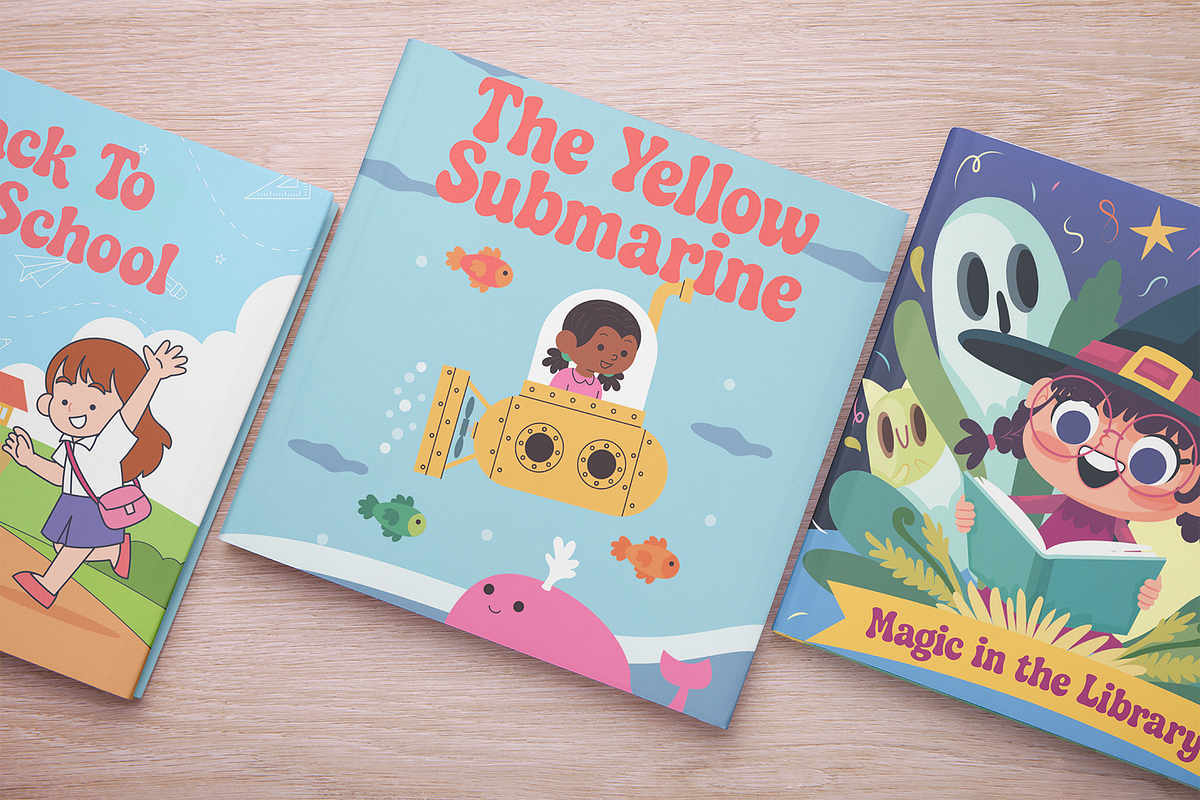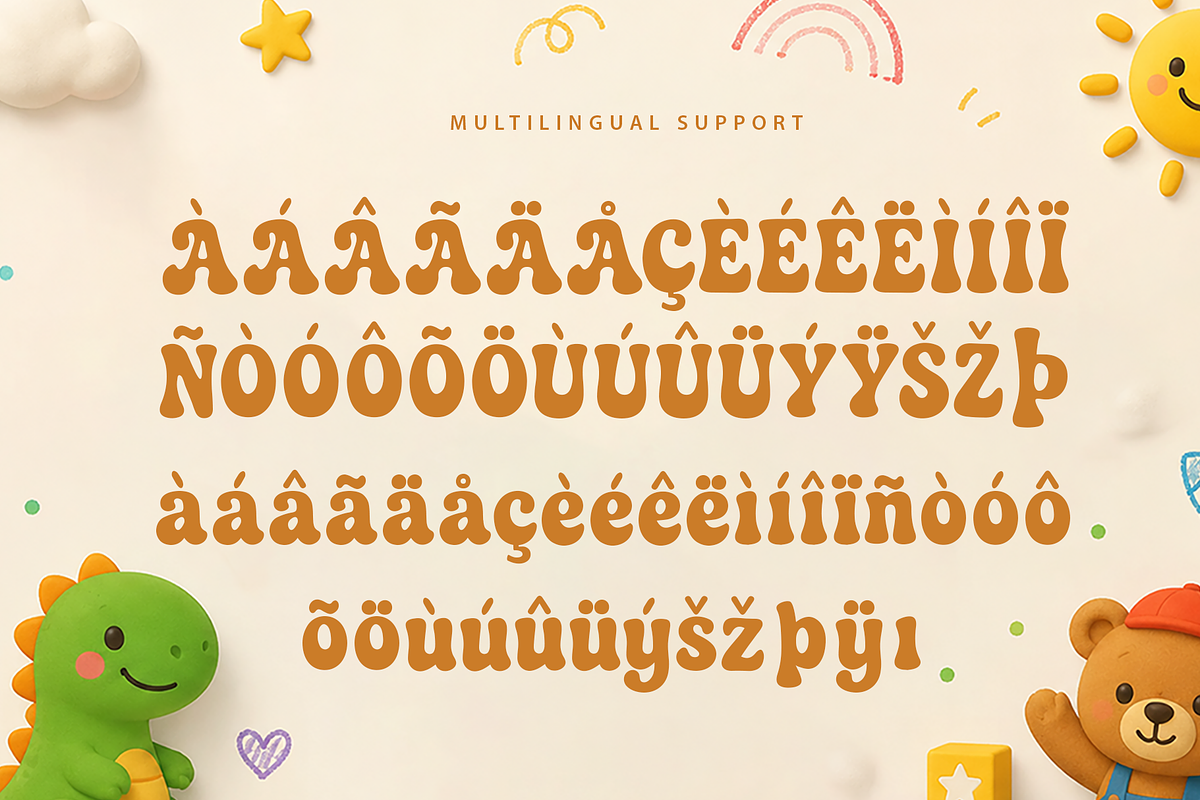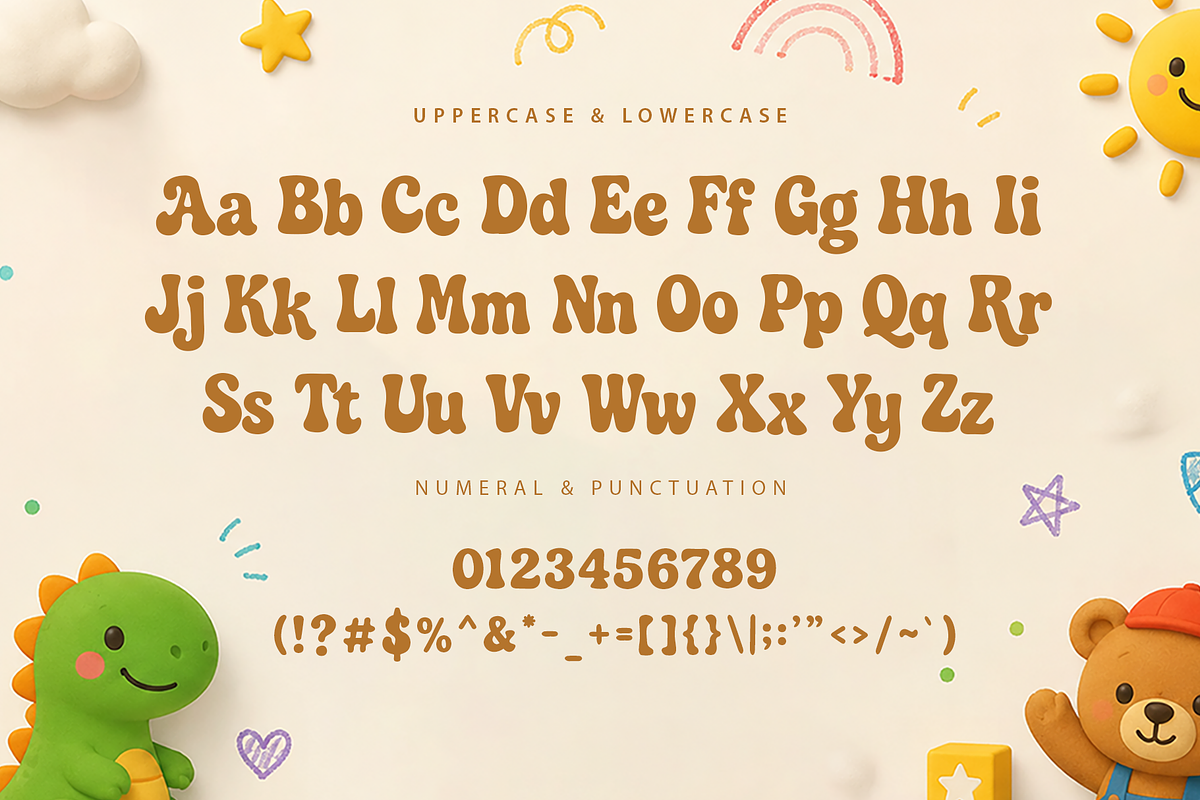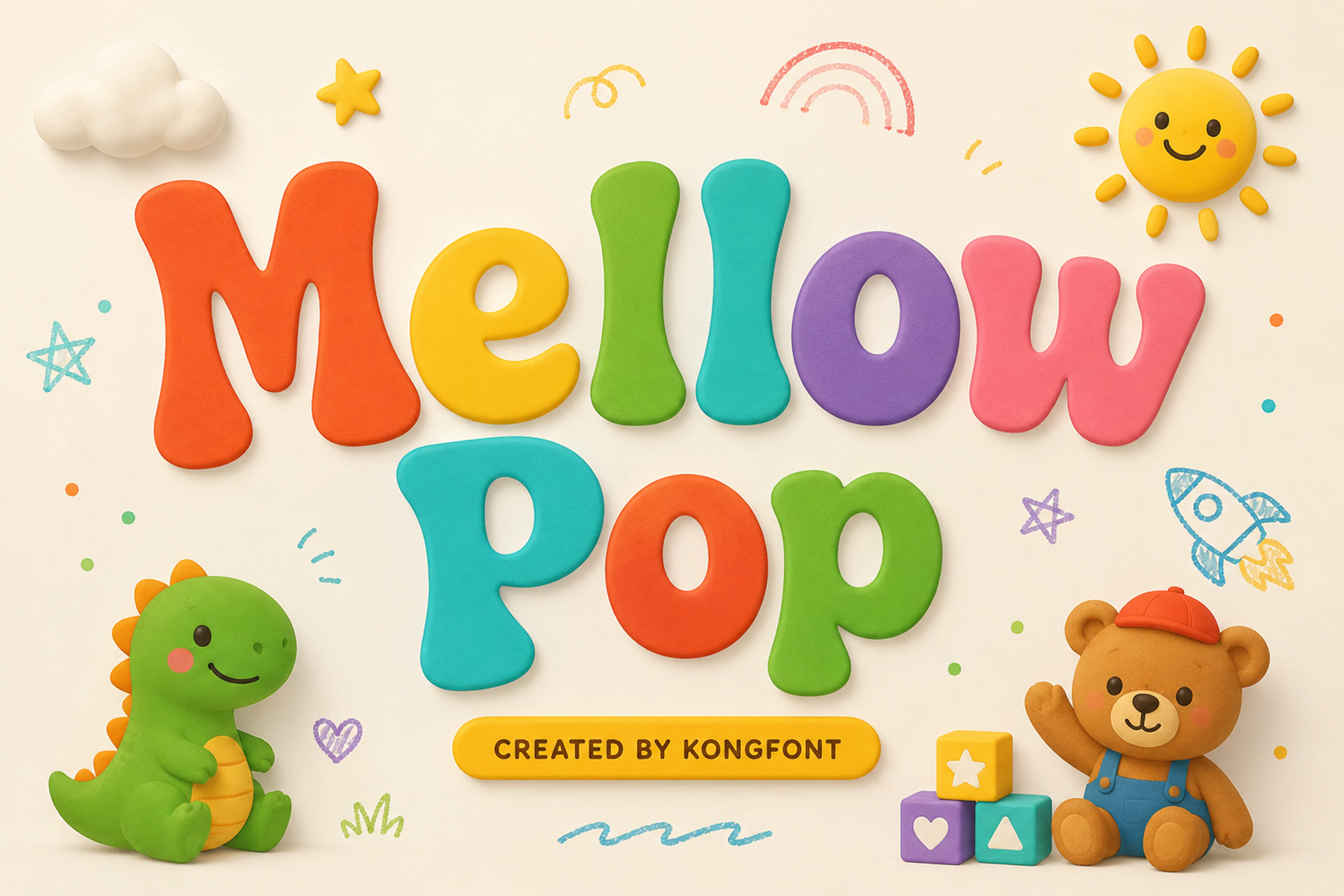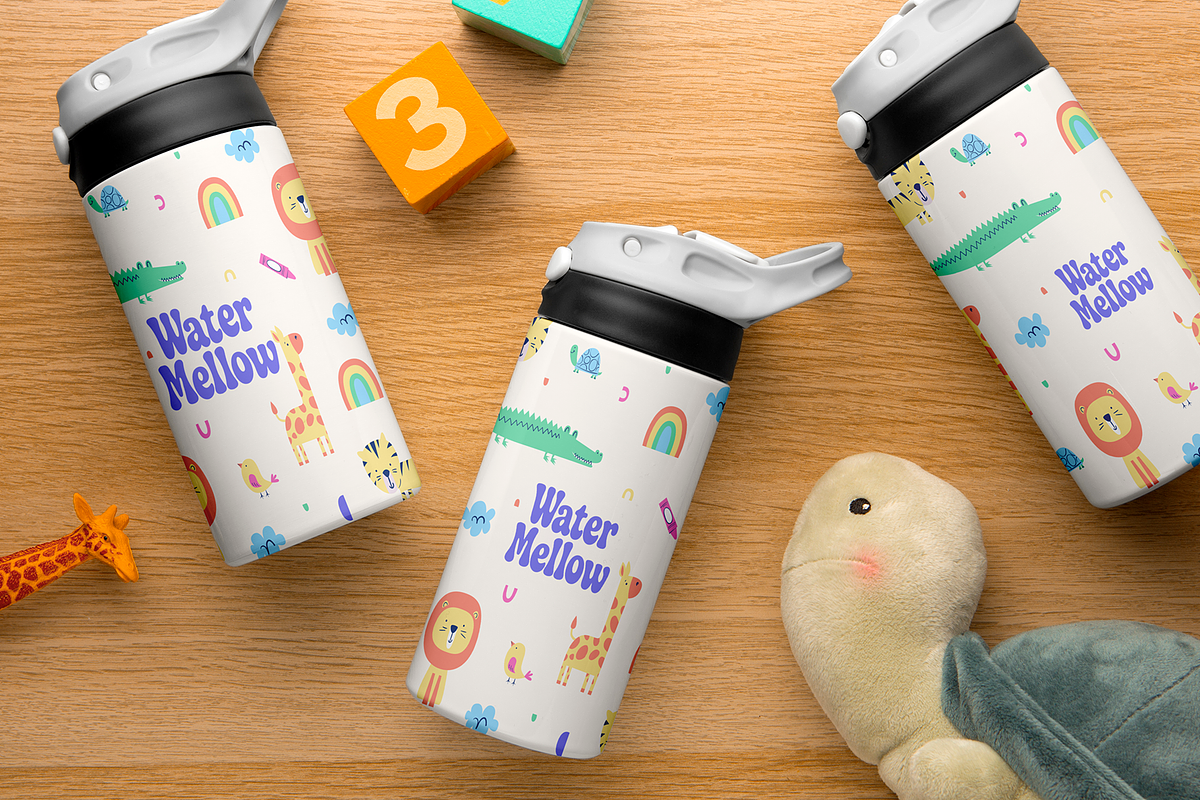
Mellow Pop - Modern Kids Font
Mellow Pop is a modern kids font bursting with joy, creativity, and playful energy. Designed with rounded shapes, cheerful curves, and friendly letterforms, this typeface brings a fun and vibrant personality to every design.
Its clean and readable structure ensures excellent visibility while maintaining a cute and imaginative character. The font includes uppercase and lowercase letters, numerals, punctuation, and multilingual support, making it versatile for a wide range of print and digital projects.